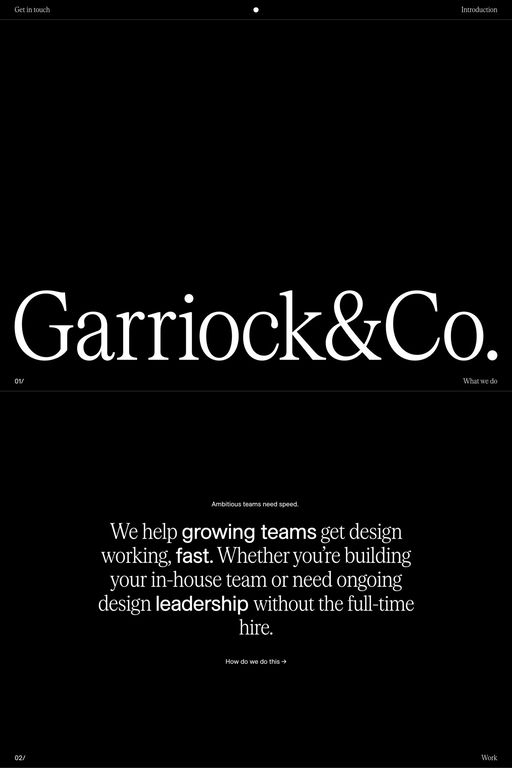
Allianz is a sans-serif typeface from Extraset.
Inspired by early sans serifs, which would then lead to the neo-grotesque style, Allianz makes light of the Zeitprobleme and spotlights the originality and sharpness of this type of character.